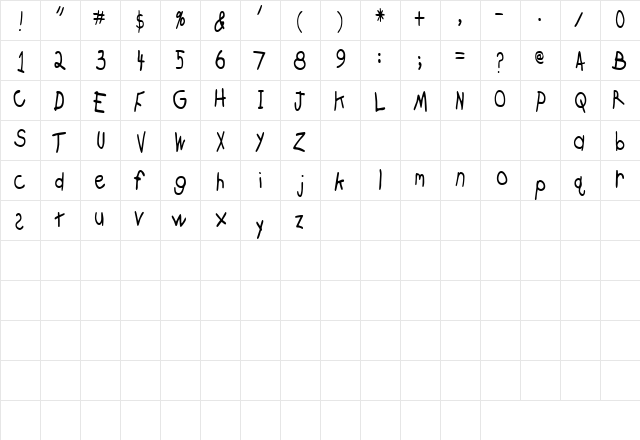
CrayonCondensed Regular Font Preview
CrayonCondensed Regular
Design Context for CrayonCondensed Typeface
CrayonCondensed is a composed and adaptable typeface that performs quietly and consistently across a wide range of design contexts. Its narrow stance lets it pack a punch even in space-constrained designs.